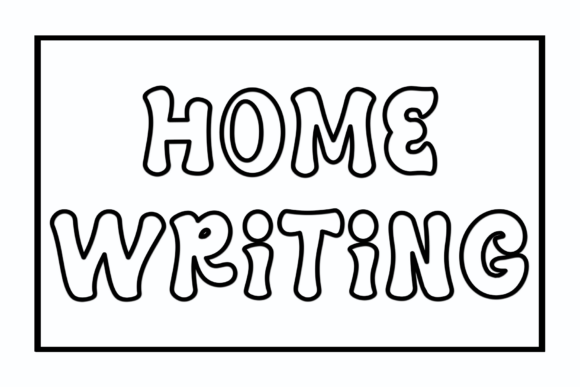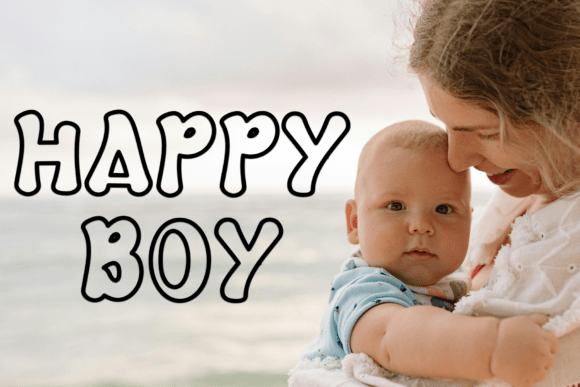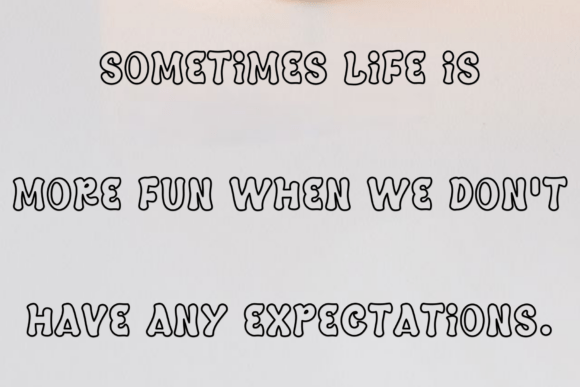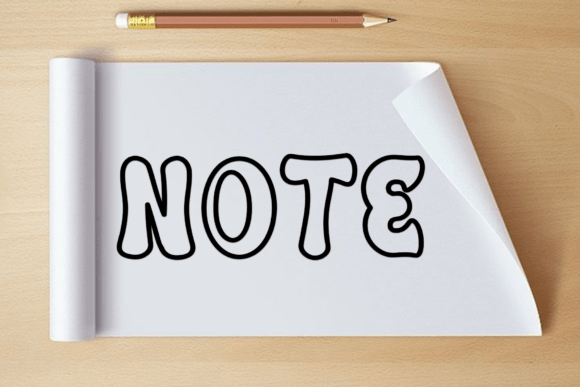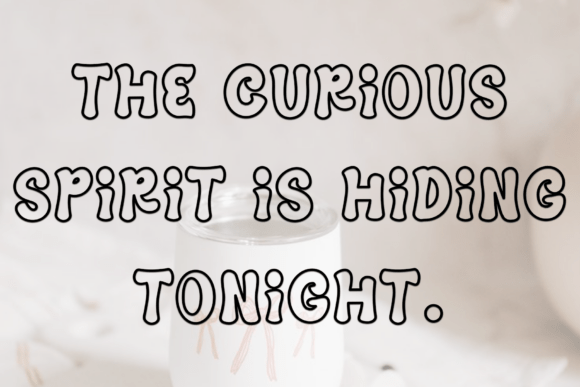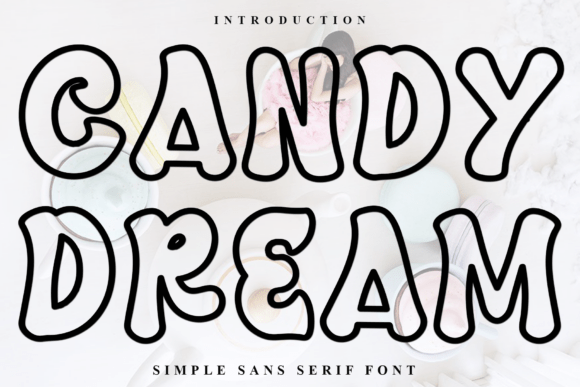
Indulge Your Creative Sweet Tooth with Candy Dream Font
Are you looking for a font that can add a touch of whimsy and playfulness to your design project? Look no further than the Candy Dream font, a delightfully soft and “bubbly” sans-serif display typeface designed to radiate comfort and joy. In this article, we’ll dive into the features and benefits of the Candy Dream font, and explore how you can use it to make your designs stand out.
A Font that’s as Sweet as Candy
The Candy Dream typeface features thick, rounded outlines that create a puffy, cloud-like appearance, making every word look inviting and playful. Each glyph in the Candy Dream font is crafted with smooth, pillowy curves that lack any harsh edges, perfect for a “simple sans serif” look that appeals to both children and adults. The font’s soft and rounded design makes it an excellent choice for designs that need to convey a sense of comfort and friendliness.
Perfect for Lifestyle Branding and More
The Candy Dream typeface is an excellent choice for lifestyle branding, bakery logos, and social media content that needs a touch of whimsy. The font’s playful and approachable design makes it perfect for brands that want to convey a sense of fun and friendliness. Whether you’re designing a logo for a bakery, a social media post for a lifestyle brand, or a headline for a website, the Candy Dream font is sure to make your design stand out.
Enhance Your Design with Pastel and Neon Palettes
To make the Candy Dream font really pop, try pairing it with pastel or vibrant neon palettes. The font’s soft and rounded design looks beautiful against soft backgrounds, and the addition of bright and bold colors can add a touch of energy and excitement to your design. Whether you’re designing a logo, a social media post, or a website headline, the Candy Dream font and pastel or neon palettes are a match made in heaven.
Pairing Suggestions
The Candy Dream typeface pairs beautifully with delicate thin-line icons or hand-drawn illustrations. The font’s playful and whimsical design makes it perfect for pairing with illustrations and icons that have a similar feel. Try pairing the Candy Dream font with a delicate thin-line icon, such as a star or a heart, to add a touch of magic to your design. Alternatively, pair the font with a hand-drawn illustration, such as a floral pattern or a cartoon character, to create a design that’s truly unique.
Why Choose the Candy Dream Font?
So why choose the Candy Dream font for your next design project? Here are just a few reasons:
- Unique and playful design: The Candy Dream font features a unique and playful design that’s sure to make your design stand out.
- Comforting and friendly feel: The font’s soft and rounded design conveys a sense of comfort and friendliness, making it perfect for designs that need to appeal to a wide audience.
- Versatile: The Candy Dream font is versatile and can be used for a wide range of design projects, from lifestyle branding to social media content.
- Easy to read: Despite its playful design, the Candy Dream font is easy to read, making it perfect for headlines and titles.
In conclusion, the Candy Dream font is a delightfully soft and “bubbly” sans-serif display typeface that’s perfect for designers and crafters who want to add a touch of whimsy and playfulness to their designs. With its unique and playful design, comforting and friendly feel, and versatility, the Candy Dream font is sure to make your design stand out. So why not indulge your creative sweet tooth and try the Candy Dream font for your next design project?
Get Creative with Candy Dream Font
Ready to get creative with the Candy Dream font? Here are a few ideas to get you started:
- Design a logo for a bakery or cafe: The Candy Dream font is perfect for bakery logos and can add a touch of whimsy and playfulness to your design.
- Create a social media post for a lifestyle brand: The Candy Dream font is perfect for social media posts and can add a touch of friendliness and approachability to your design.
- Design a headline for a website: The Candy Dream font is perfect for headlines and can add a touch of energy and excitement to your design.
Whatever your design project, the Candy Dream font is sure to be a sweet addition. So why not give it a try and see how it can enhance your design?